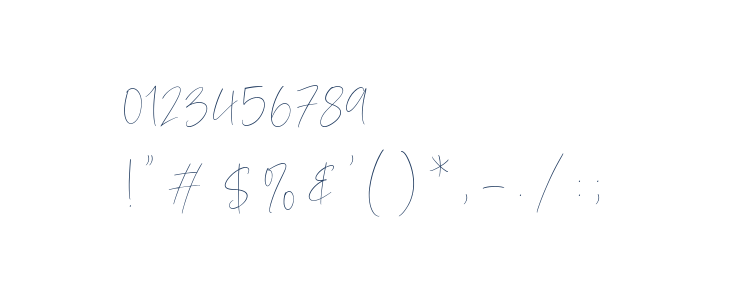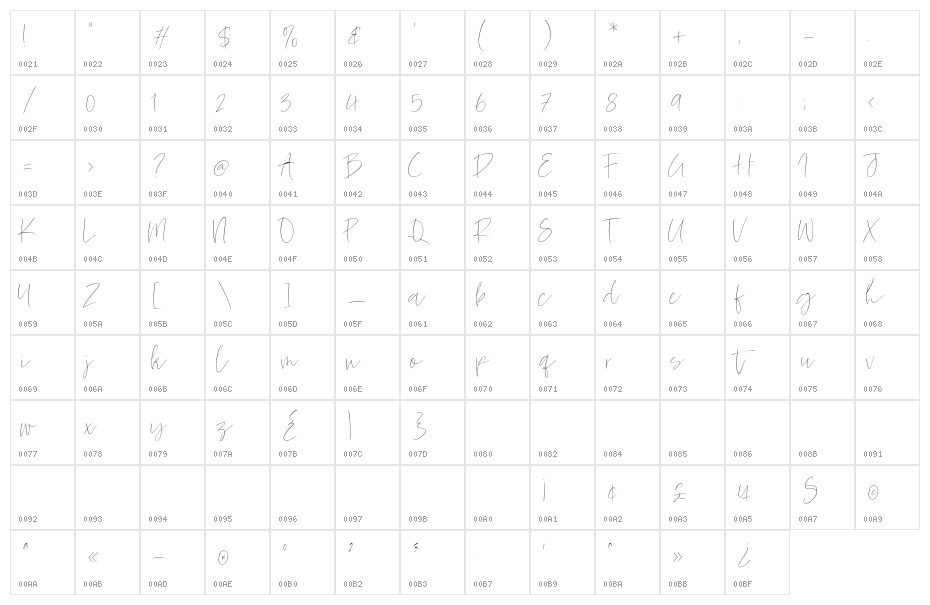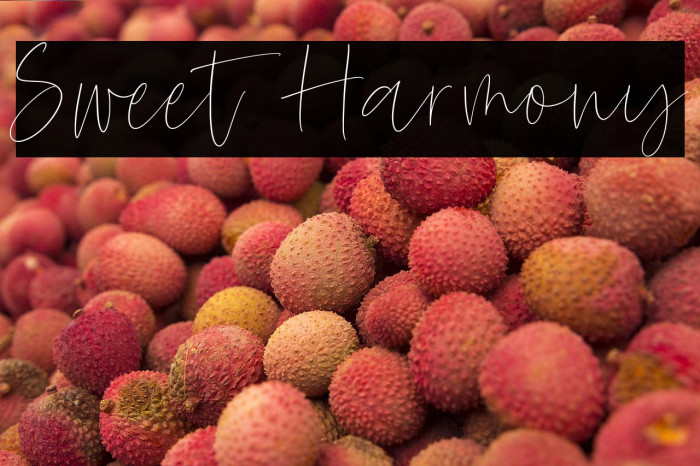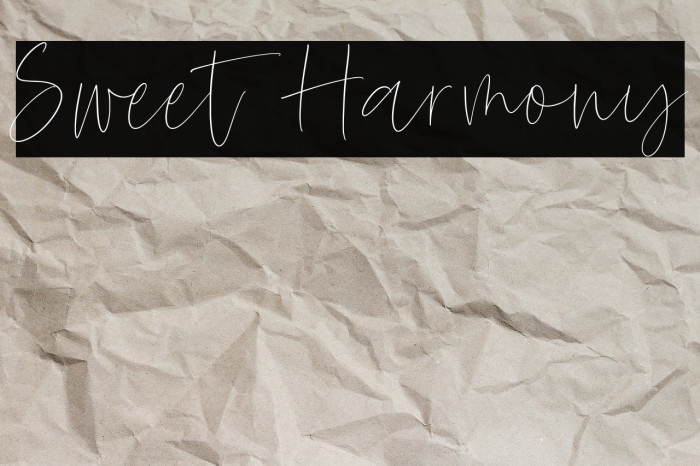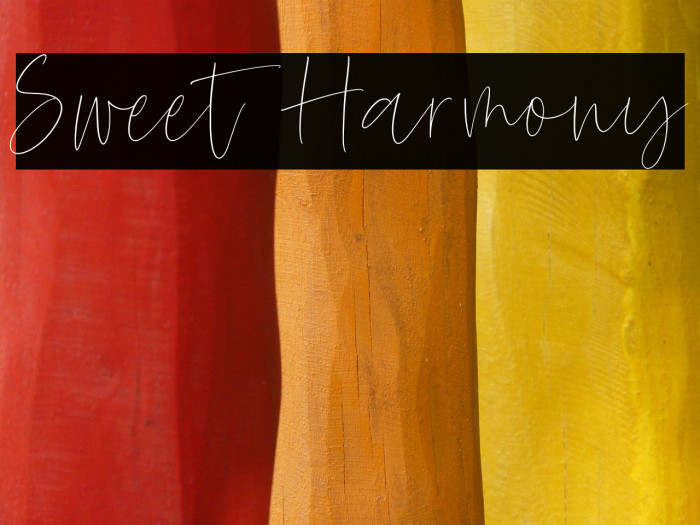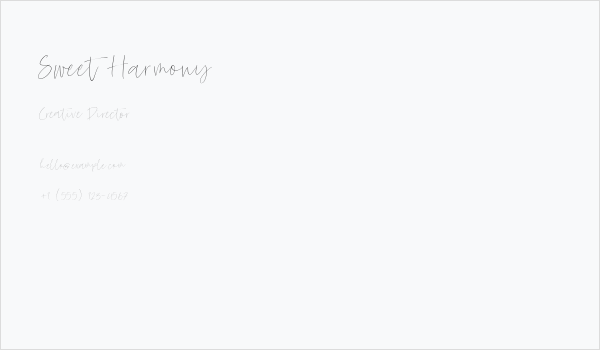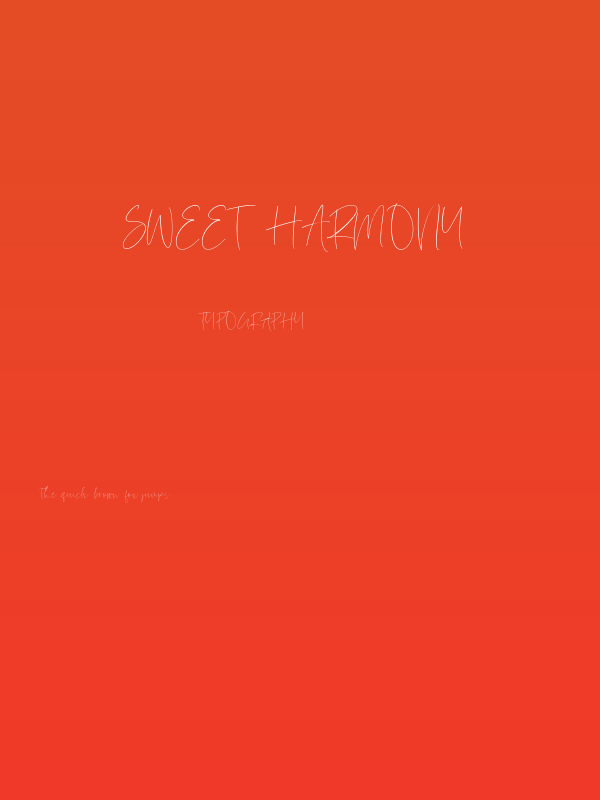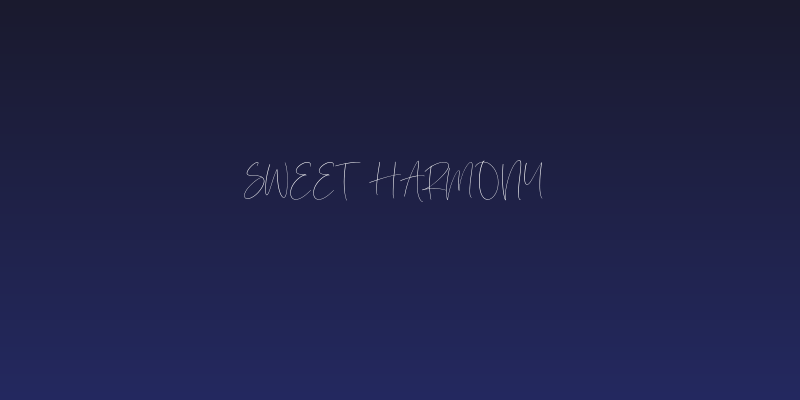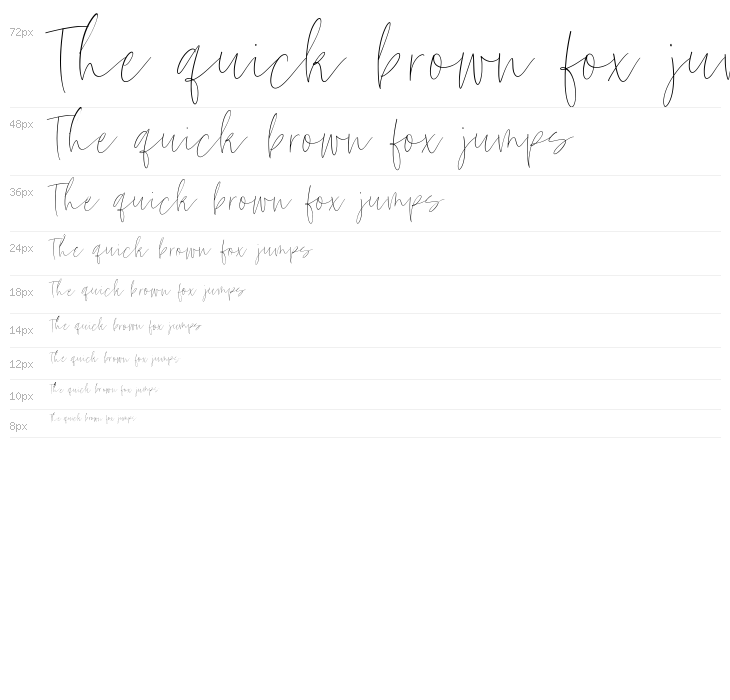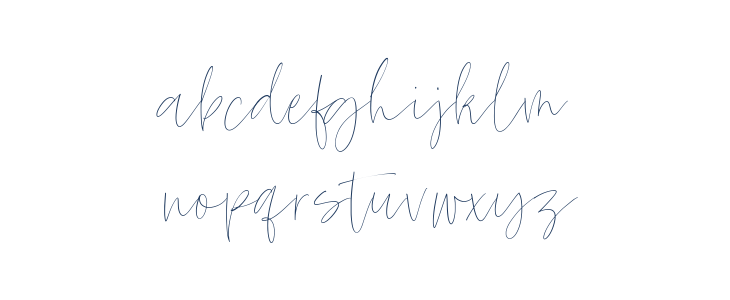
Sweet Harmony Font
Sweet Harmony Description
This font exudes a casual and elegant handwritten style, characterized by its fluid and natural strokes. The letters are connected with a smooth flow, giving it a personal and intimate feel. The uppercase letters maintain a consistent height, while the lowercase letters vary slightly in size, adding to its organic appearance. The numerals and special characters are crafted with the same attention to detail, ensuring a cohesive look across all elements. Its thin lines and subtle curves make it suitable for projects that require a touch of sophistication and warmth.
| Overall Style | Elegant, Casual |
| Proposed Projects | Ideal for wedding invitations, personal branding, greeting cards, and social media graphics. |